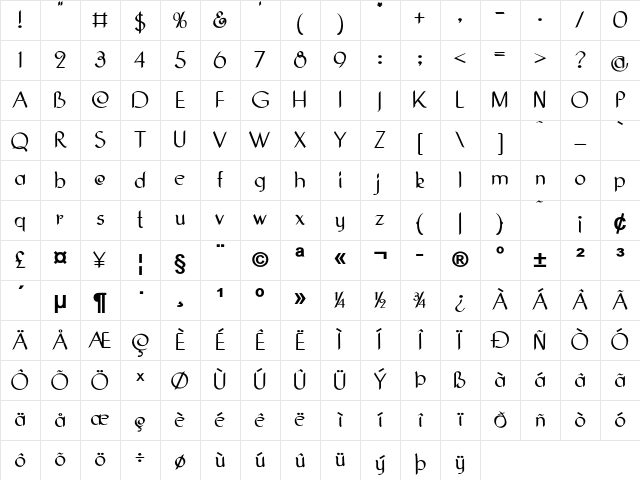
Cinnabar Bold
Design Context for Cinnabar
Cinnabar is a composed and adaptable typeface that performs quietly and consistently across a wide range of design contexts. Its bold stroke weight gives it real presence on the page.
Pro Tip: Use Cinnabar in both headline and body roles to test its range before committing to a single application.